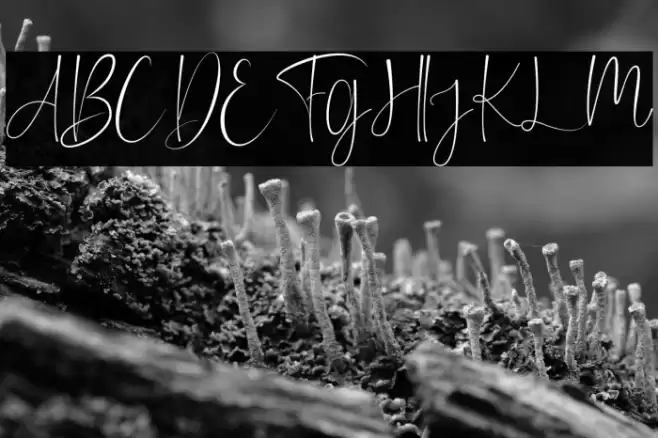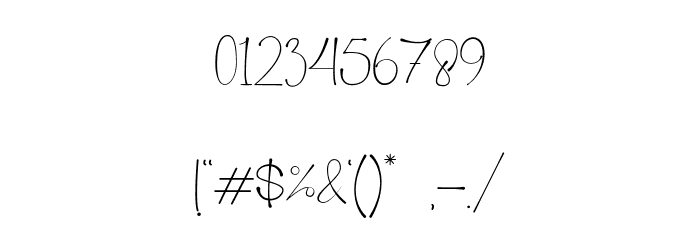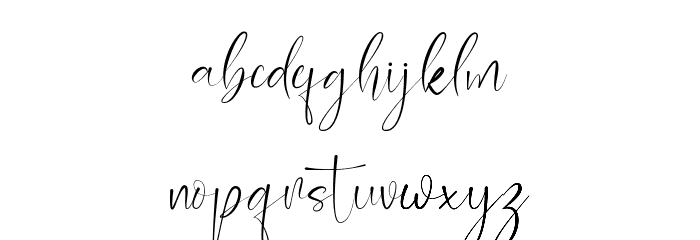
Autopilot Font
Autopilot Description
This font features an elegant, flowing script style that mimics the fluidity of natural handwriting. The uppercase letters are characterized by their tall, graceful loops and sweeping curves, while the lowercase letters maintain a consistent, delicate flow. The numerals and special characters are designed with the same attention to detail, ensuring a cohesive look across all glyphs. The strokes are thin and consistent, giving the font a light and airy feel. This style is perfect for adding a touch of sophistication and elegance to any design project.
An elegant, flowing script font with graceful loops and sweeping curves from Uncategorized fonts.
- Font: Autopilot
- Proposed Projects: Ideal for wedding invitations, greeting cards, personal branding, and elegant packaging designs.
- Weight: Light
- Overall Style: Elegant
- Use Case: Logos, Invitations, Decorative text
Autopilot UPPERCASE
Autopilot LOWERCASE
Autopilot OTHER CHARS